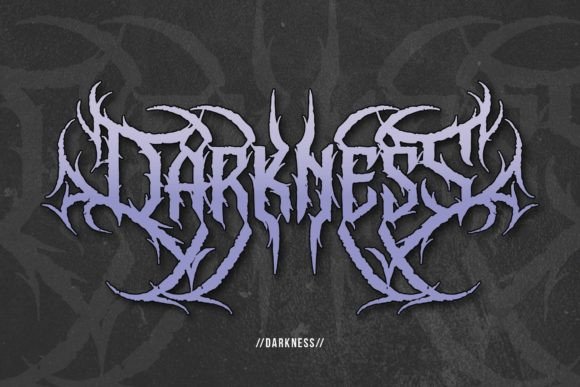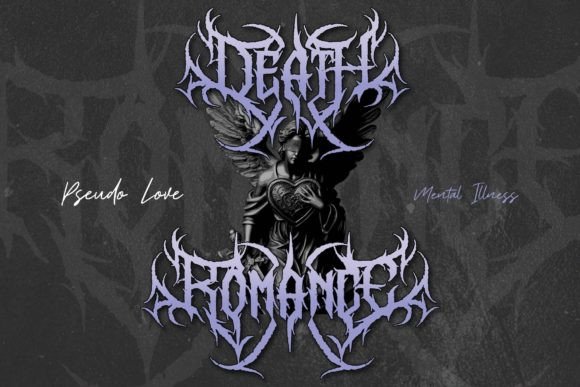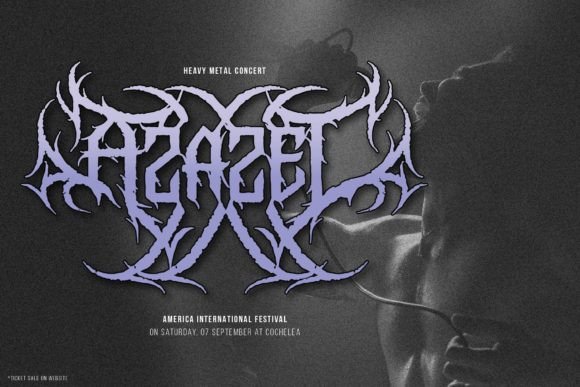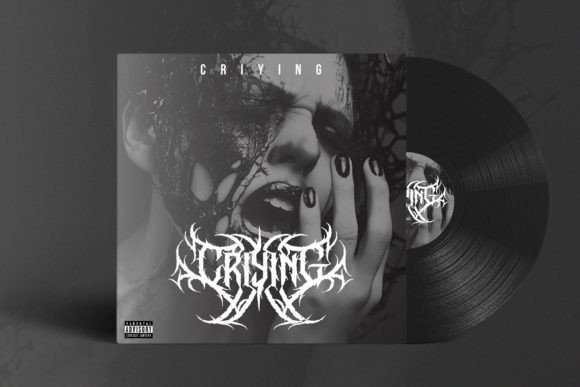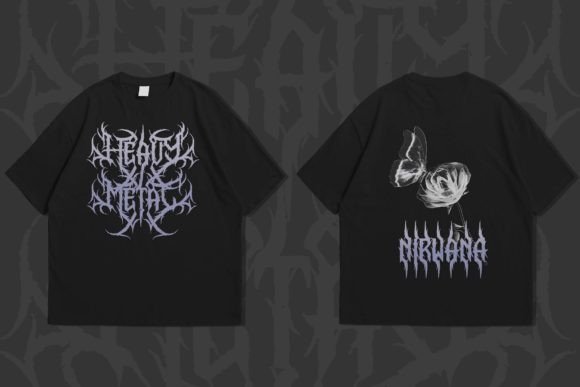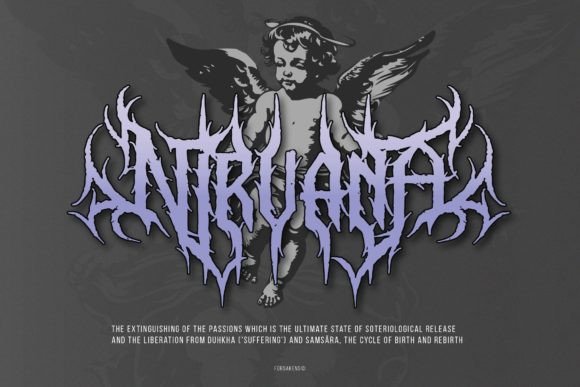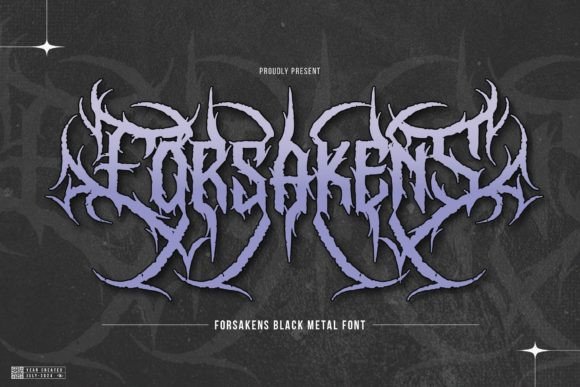
Forsakens Font: Unleashing the Dark Beauty of Black Metal Typography
Forsakens, a Swedish black metal band, has been captivating audiences with their dark, intense music since their formation in 1994. Their unique sound, characterized by fast guitar riffs, powerful drums, and deep, growling vocals, has inspired a devoted following across the globe. As a tribute to their sonic mastery, designers and crafters have been seeking a font that embodies the essence of Forsakens’ music – a font that exudes the same dark, melancholic, and natural themes that permeate their songs.
The Birth of Forsakens Font
While there isn’t an official “Forsakens Font” created by the band, the concept of a typography inspired by their music has sparked interest among font enthusiasts. The idea is to craft a font that mirrors the aesthetic of black metal music, with its dark, aggressive, and mystical undertones. This font would be perfect for designers looking to create album artwork, merchandise, or even tattoos that pay homage to the band’s style.
Characteristics of Forsakens-Inspired Typography
A Forsakens-inspired font would likely feature:
• Dark and bold lettering: Inspired by the band’s intense music, the font would boast thick, heavy lines and sharp edges, evoking a sense of power and aggression.
• Intricate details: The font might incorporate intricate details, such as ornate serifs, gothic-inspired flourishes, or knotwork patterns, reflecting the band’s affinity for nature and mysticism.
• Weathered and worn textures: To convey the sense of melancholy and darkness, the font could include weathered, worn, or distressed textures, giving it a vintage, battle-hardened look.
Design Inspiration from Black Metal Aesthetics
Black metal, as a genre, is known for its striking visual aesthetic, often characterized by:
• Dark color schemes: Black, dark greys, and muted earth tones dominate the visual landscape of black metal.
• Nature-inspired imagery: Bands often incorporate elements of nature, such as forests, mountains, and animals, into their artwork.
• Occult and mystical symbols: Black metal frequently explores themes of mysticism, occultism, and ancient mythology.
A Forsakens-inspired font would likely draw from these visual elements, incorporating them into its design to create a cohesive and haunting aesthetic.
Crafting with Forsakens Font
For crafters and designers looking to work with a Forsakens-inspired font, here are some ideas:
• Album artwork: Create striking album covers, posters, or flyers that capture the essence of Forsakens’ music.
• Merchandise design: Design t-shirts, stickers, or patches featuring the font, perfect for fans to show off their allegiance.
• Tattoo design: The bold, intricate design of a Forsakens-inspired font makes it suitable for tattoos, allowing fans to permanently commemorate their love for the band.
While there may not be an official Forsakens font, the concept of a typography inspired by their music offers a wealth of creative possibilities. By embracing the dark, intense, and natural themes that define Forsakens’ sound, designers and crafters can create striking artwork that pays tribute to the band’s legacy. Whether you’re a fan of black metal, Forsakens, or simply dark and bold typography, the idea of a Forsakens-inspired font is sure to captivate and inspire.